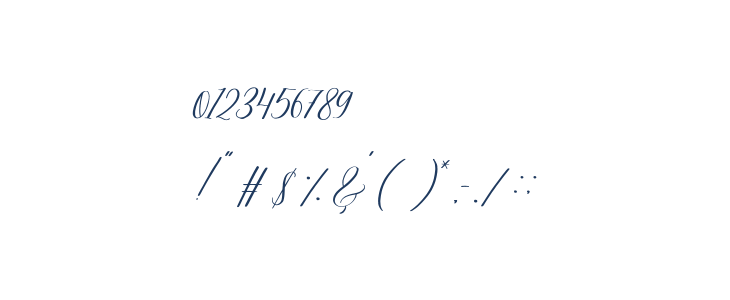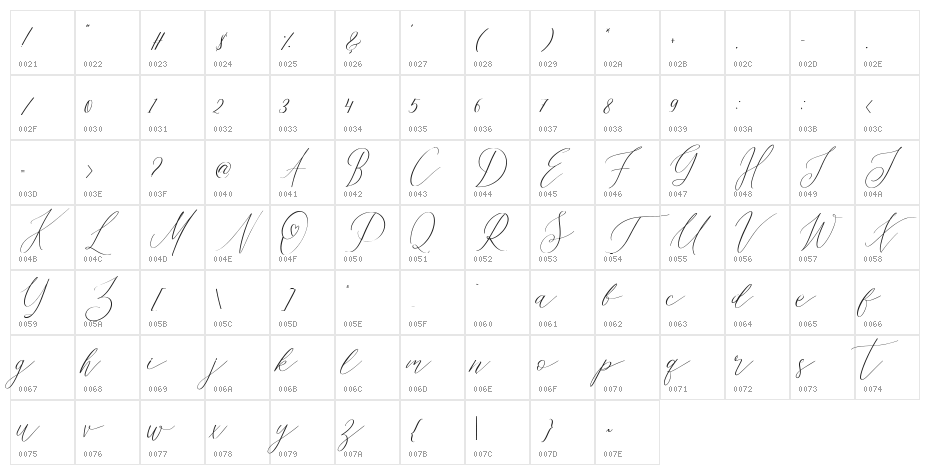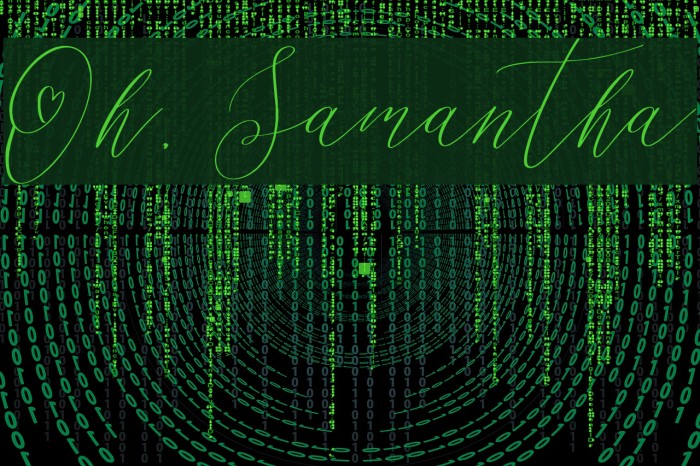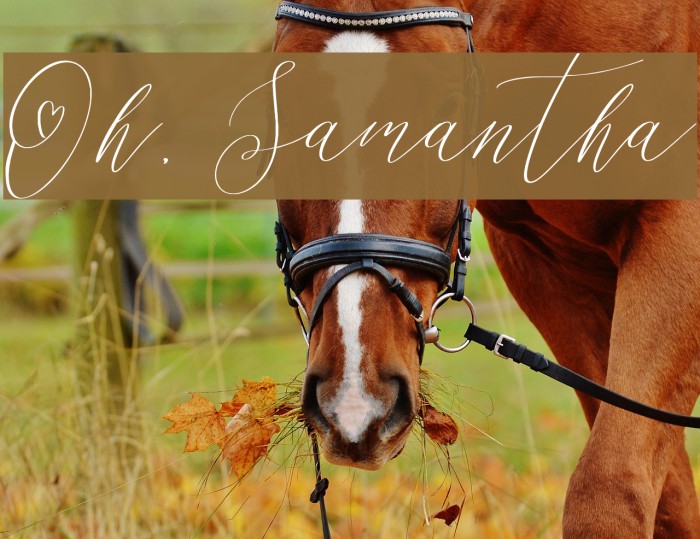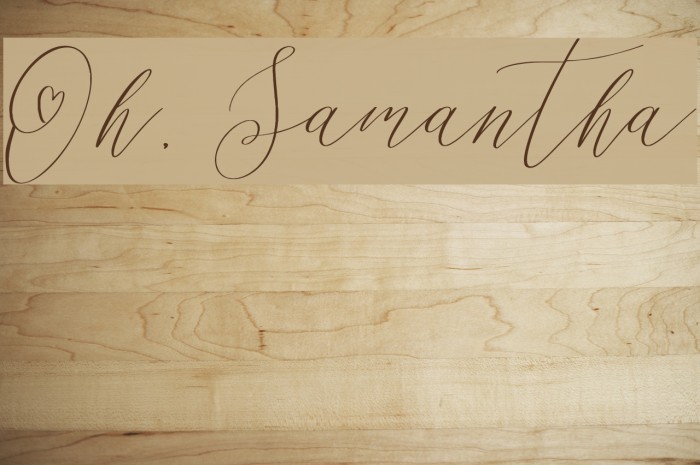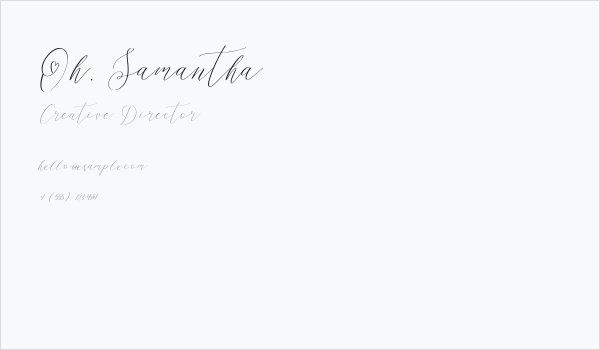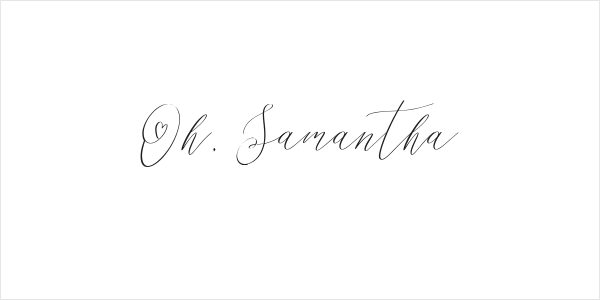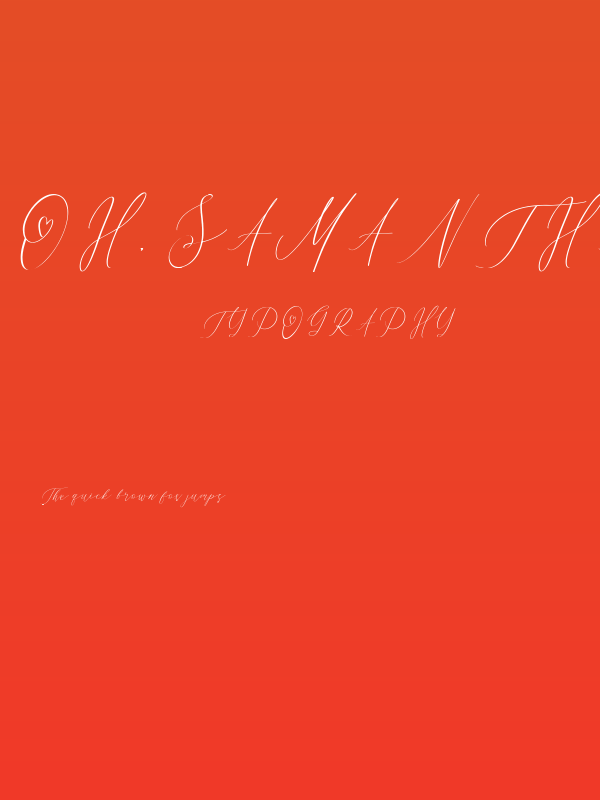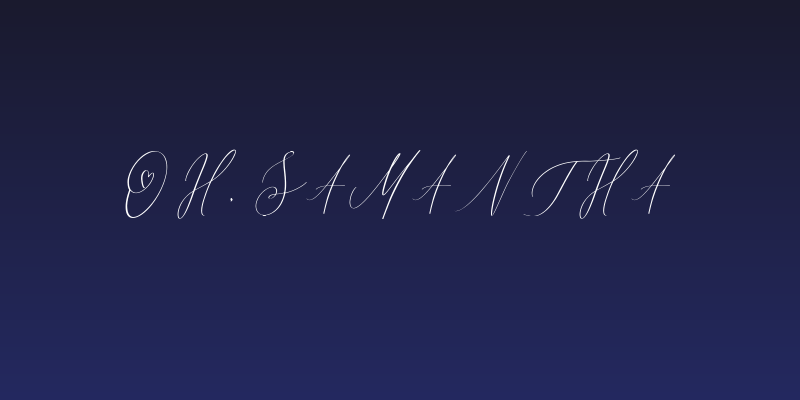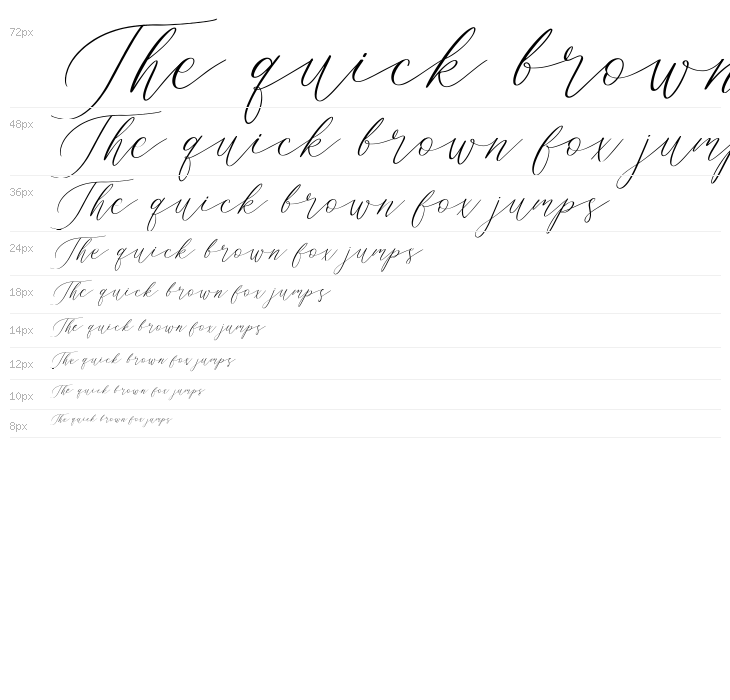
Oh, Samantha Font
Oh, Samantha Description
This elegant script font exudes a sense of sophistication and grace, characterized by its fluid, flowing strokes and delicate curves. Each letter connects seamlessly, creating a harmonious and continuous line that mimics the art of calligraphy. The uppercase letters are slightly more ornate, with extended flourishes that add a touch of drama, while the lowercase letters maintain a consistent rhythm and balance. The numbers and special characters are crafted with the same attention to detail, ensuring a cohesive look across all elements. This font's refined style makes it ideal for formal invitations, branding, and any project that requires a touch of elegance.
| Use Case | Headlines, Invitations, Branding |
| Proposed Projects | Ideal for wedding invitations, luxury branding, elegant stationery, and high-end product packaging. |